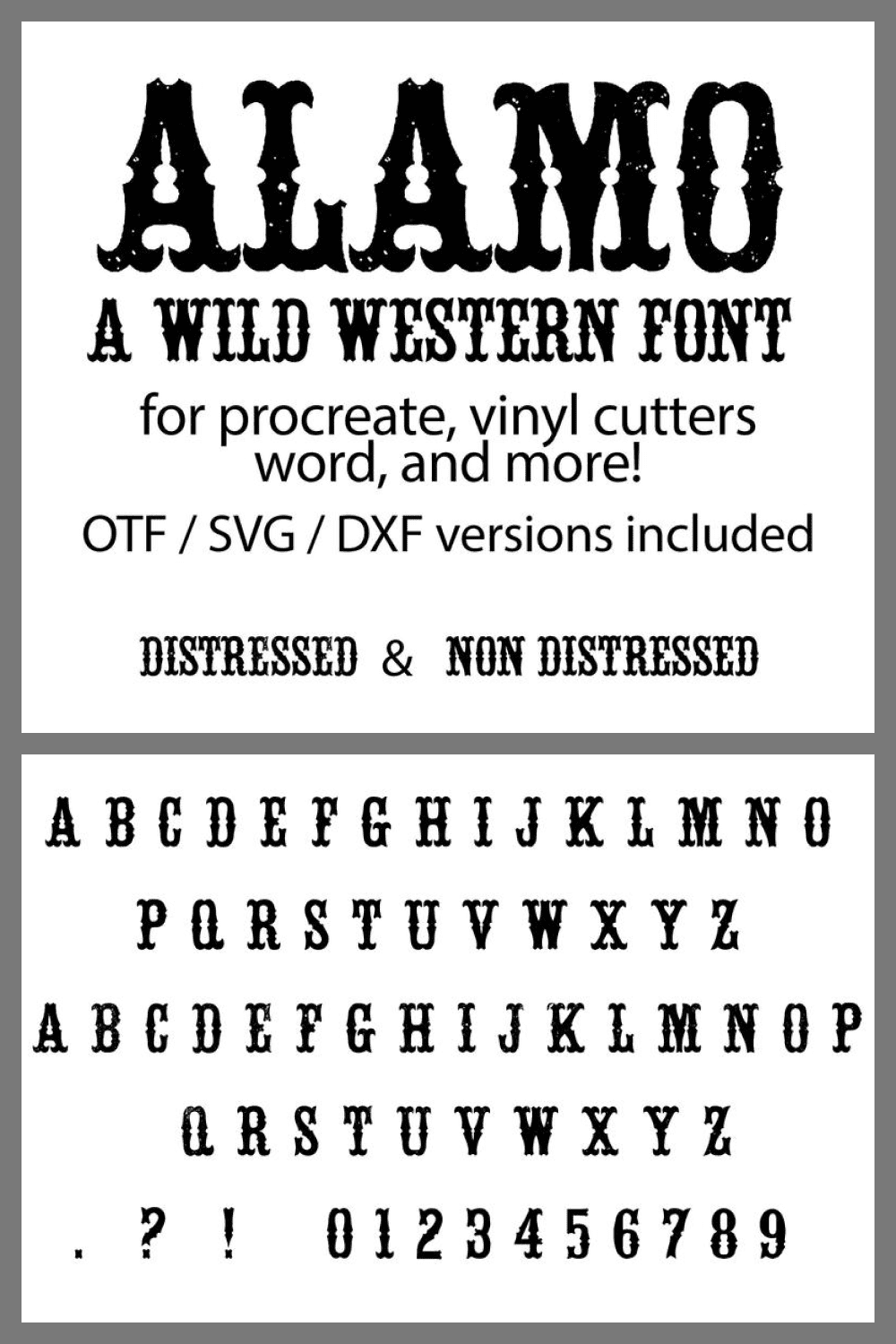
Western Fonts. Many newspapers and printed editions have been using Western fonts for a long time. They, of course, fell in love with the reader and harmoniously fit into the book and literary culture around the world. But only recently have they come into use among ordinary people, and they are proving to be especially important and promising.
We have analyzed why Western fonts are so attractive to our readers and why it is so profitable and very practical right now. Of course, these are nice and easily understandable fonts with a hint of historical overtones about the Wild West and cowboys. By always paying attention to the inscription, you will mentally attach more importance to what you read, all thanks to this magical themed font.